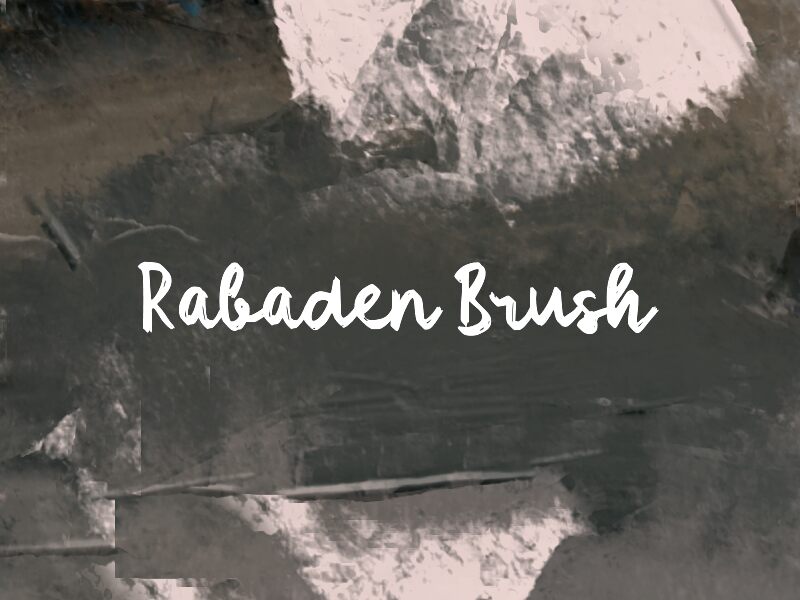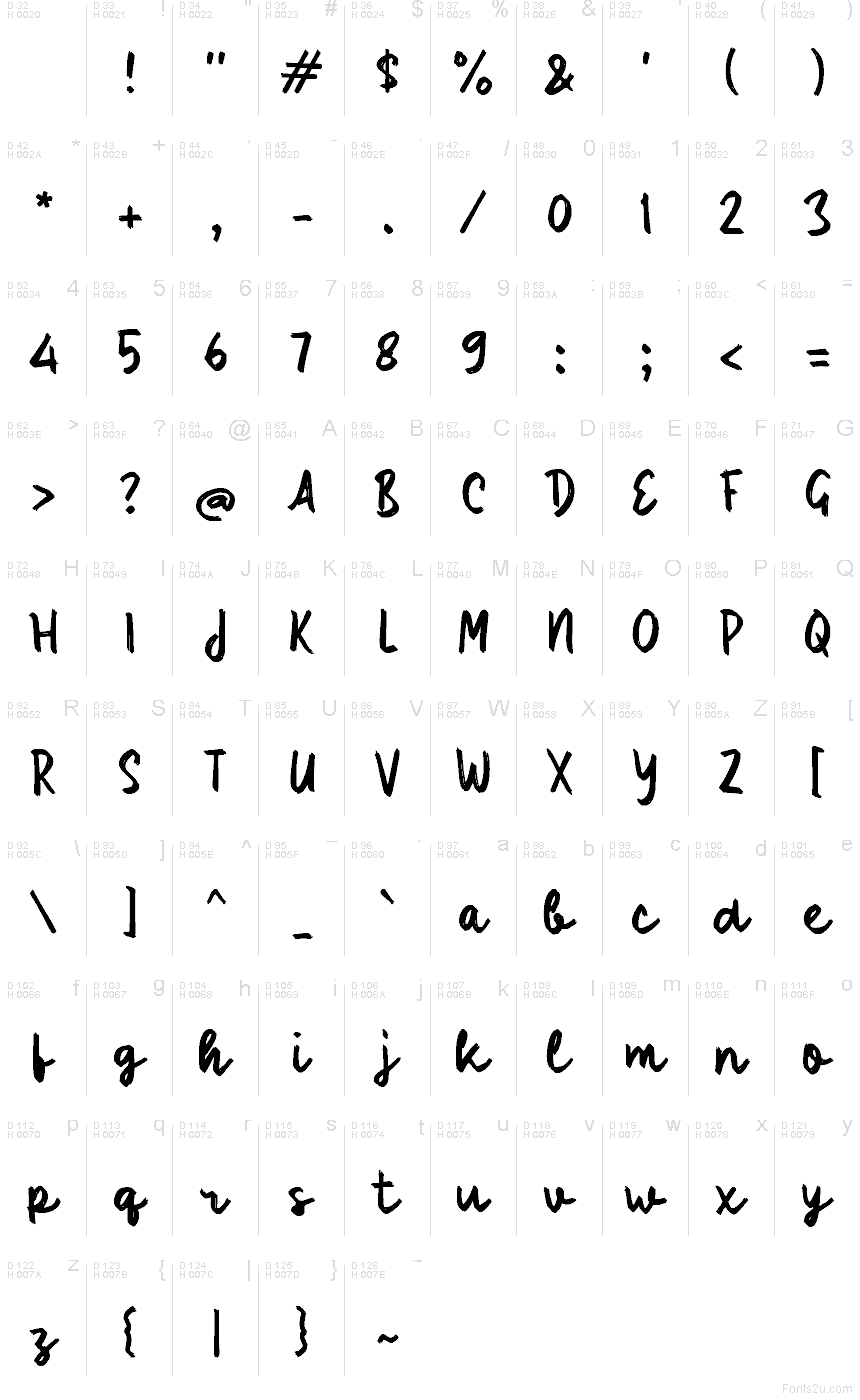
Rabaden Brush
Rabaden Brush font by wepfont.com is a free brush script typeface with inky, slightly rough edges that feel like fresh marker on textured paper. The letters dance along a loose baseline, connecting in an easy, confident rhythm that reads as friendly rather than messy. Its bold, painted strokes carry enough weight to stand out in a crowded feed while still keeping that handmade, human touch.
Using Rabaden Brush, you can give real personality to social media graphics, café menus, product packaging, posters, logos, and bold quote overlays. This free font shines when you set it large and let the texture breathe, then support it with a clean sans-serif for body copy. It’s a natural fit whenever you want work to feel casual, creative, and genuinely hand-done.